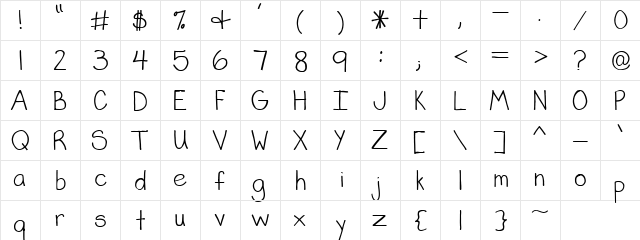
PC Brita Regular
Design Context for PC Brita Typeface
PC Brita offers clean, dependable letterforms without strong stylistic allegiance, making it a practical choice for designers who need flexibility.
Pro Tip: Use PC Brita in both headline and body roles to test its range before committing to a single application.